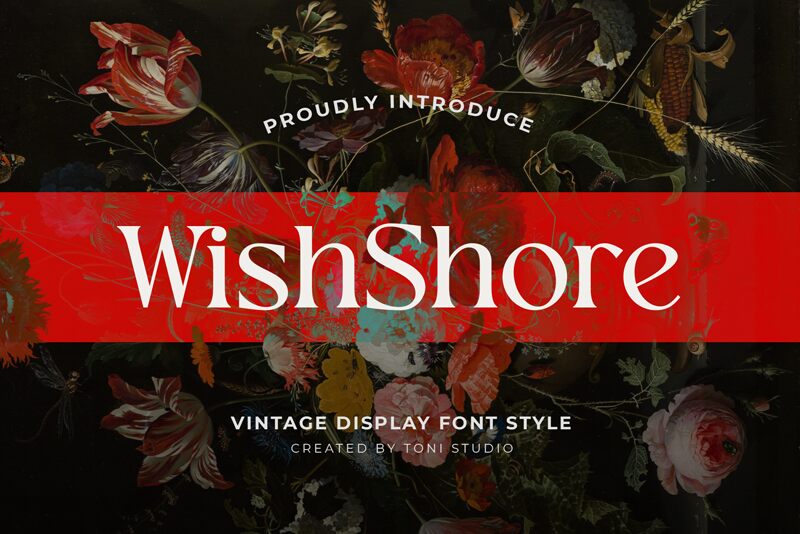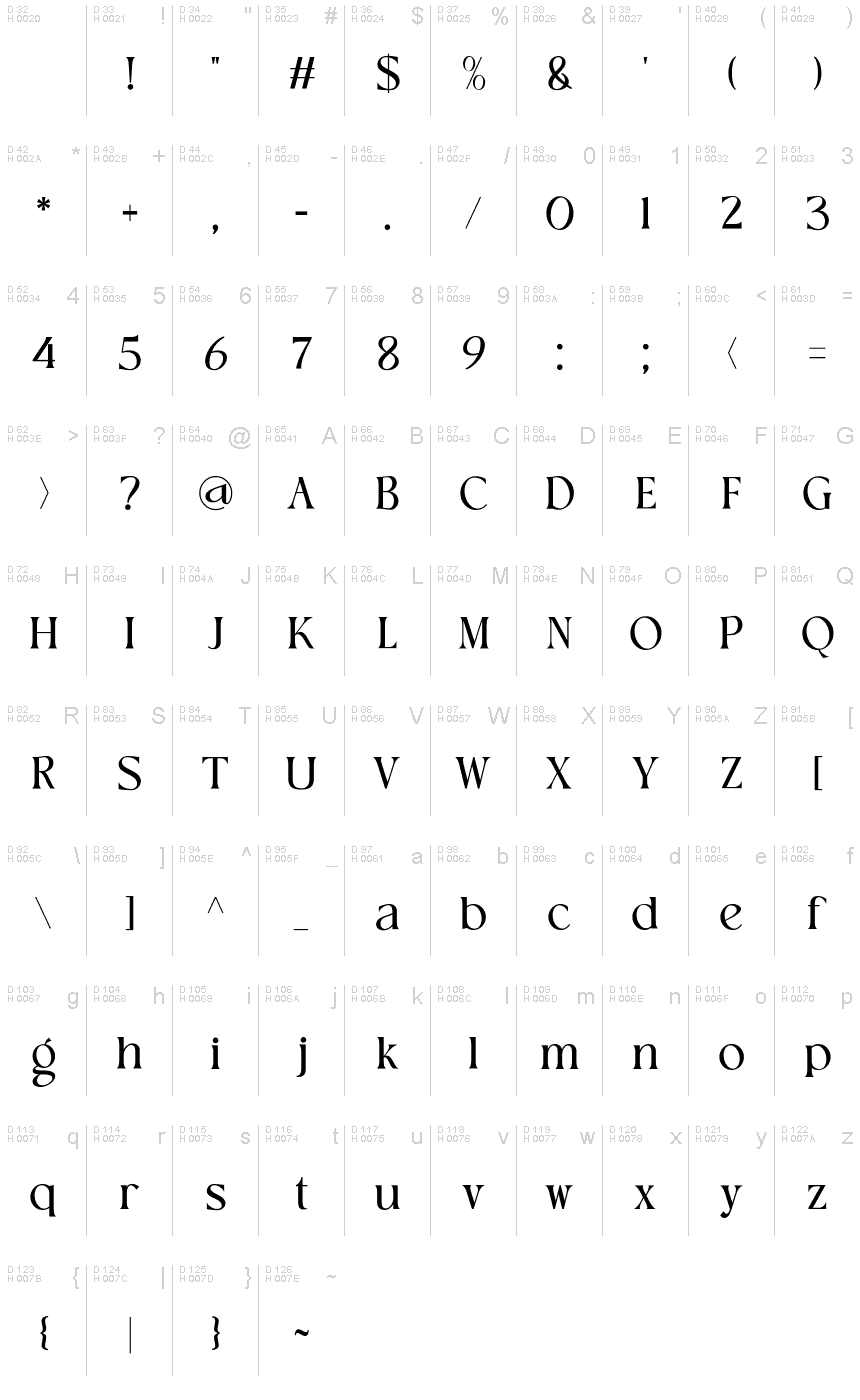
Wish Shore
Wish Shore is a sophisticated serif font designed by ToniStudio, perfect for elegant projects that require a touch of refinement. Its clean and classic lines will elevate any design, from wedding invitations to book covers. The semi-bold font is versatile enough to be used in titles and headings, while the regular weight works great for body text. Wish Shore's timeless appeal makes it suitable for various projects, such as branding, editorial design, packaging, and more. With its graceful curves and balanced proportions, this font will add an extra layer of charm to your next project.